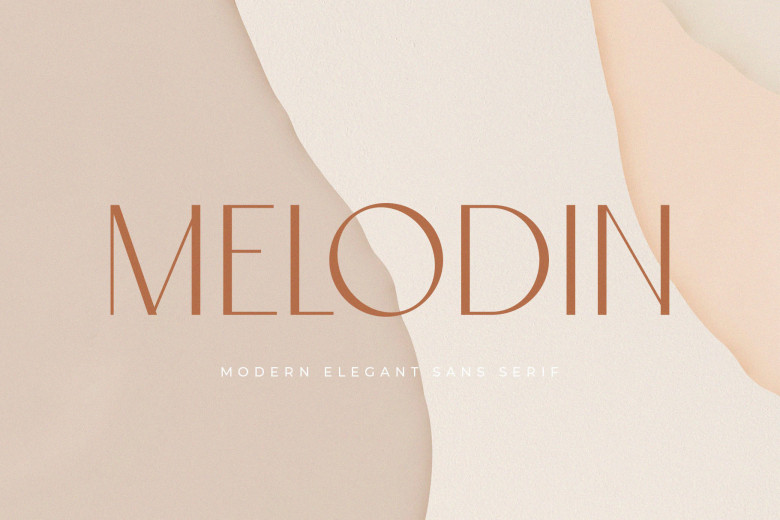
Melodin Font
Melodin is a radiant and trendy sans serif font that looks extremely attractive and chic. This fancy font was created with exclusive use in mind to make something luxurious and stylish, feminine and elegant. It is well suited for a fresh look and designs that are currently stylish.
This font is suitable for: headlines, logos, branding, magazines, product packaging and another.
Melodin Sans Serif Font